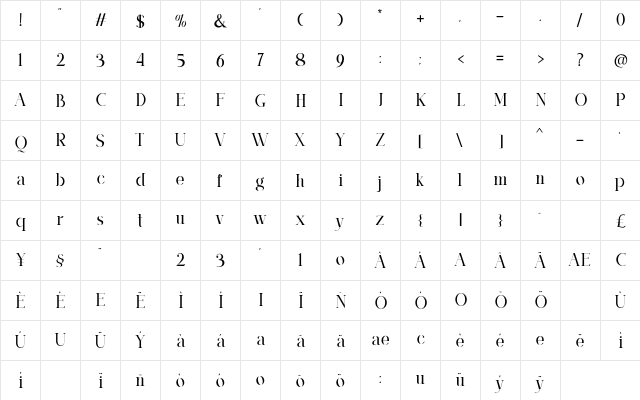
Qanforg Regular
| Foundry | Fiona & Co. |
| Designer | Fiona Studio |
Design Context for Qanforg Typeface
Qanforg takes a measured approach to typography — its balanced proportions and neutral character make it a reliable workhorse for both digital and print work.